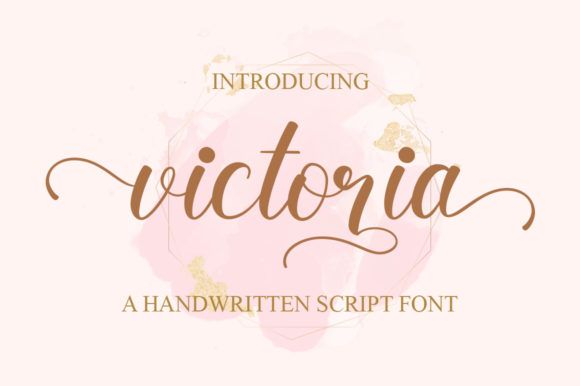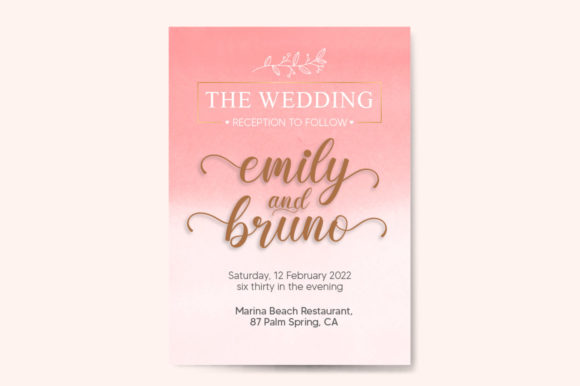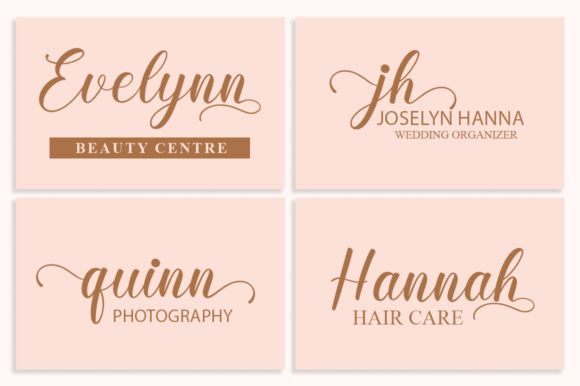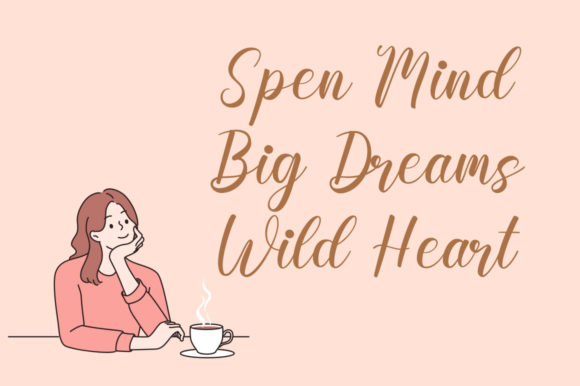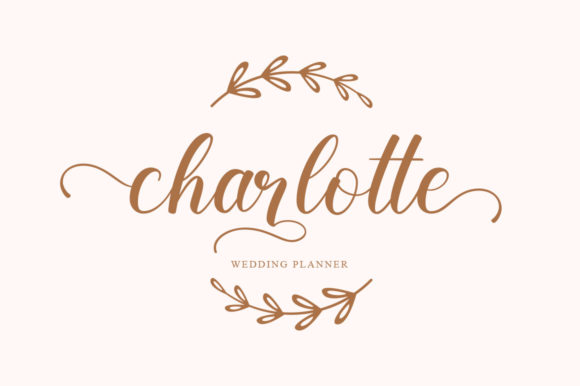
About Victoria Font
Victoria is a refined and elegant handwritten font. Dainty and joyful, this font will be ideal for writing wedding invitations, cards or any other design that may need a romantic, personalized touch! This font is PUA encoded which means you can access all of the glyphs and swashes with ease!